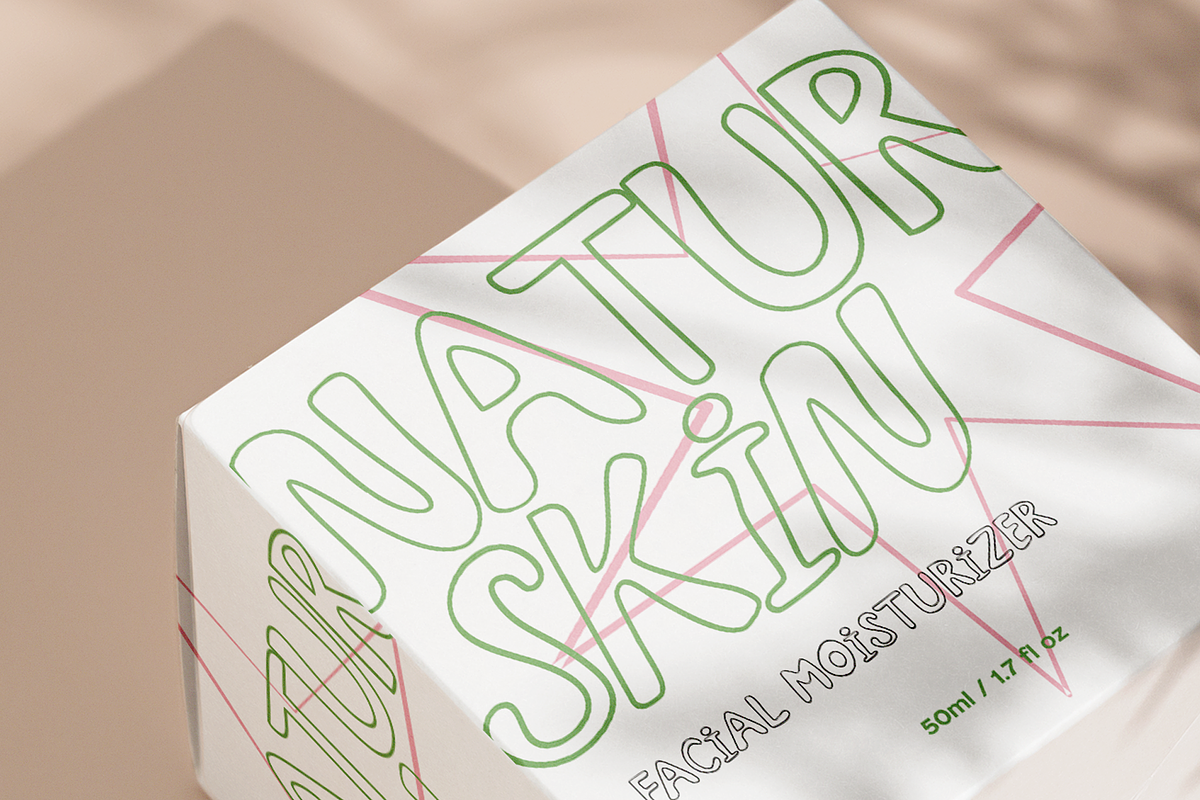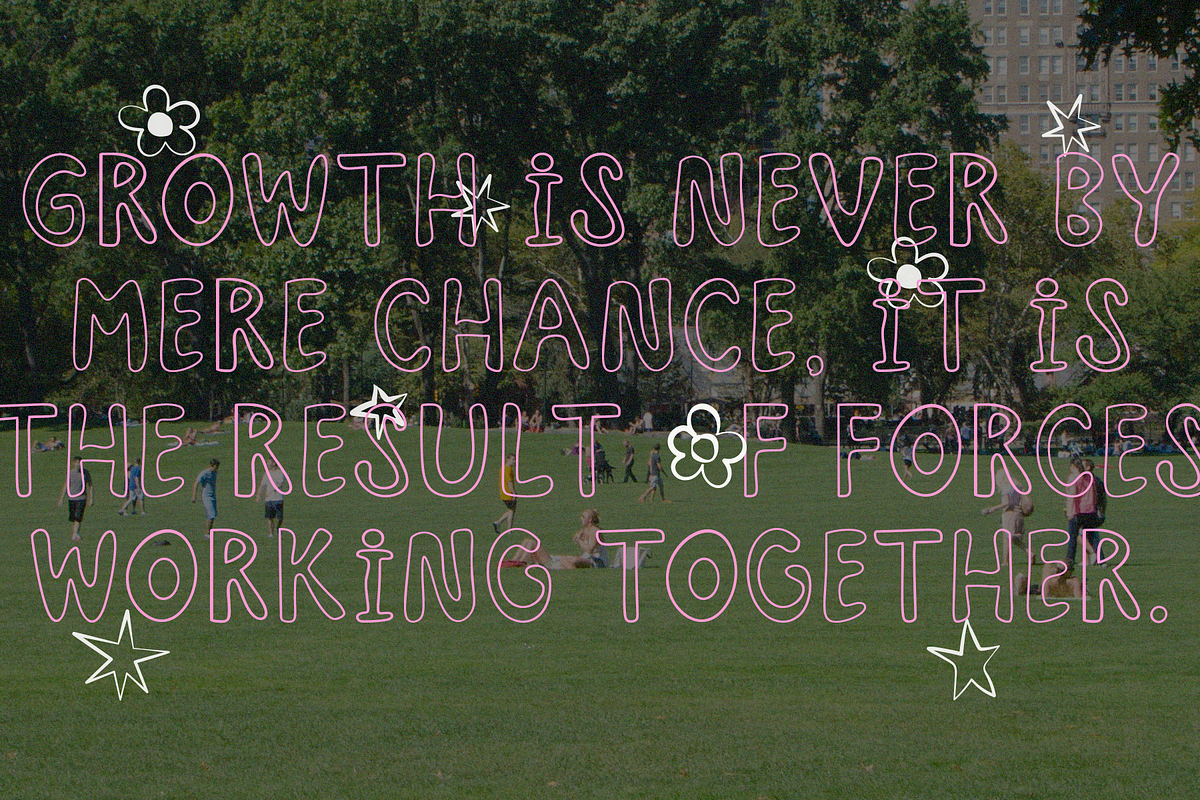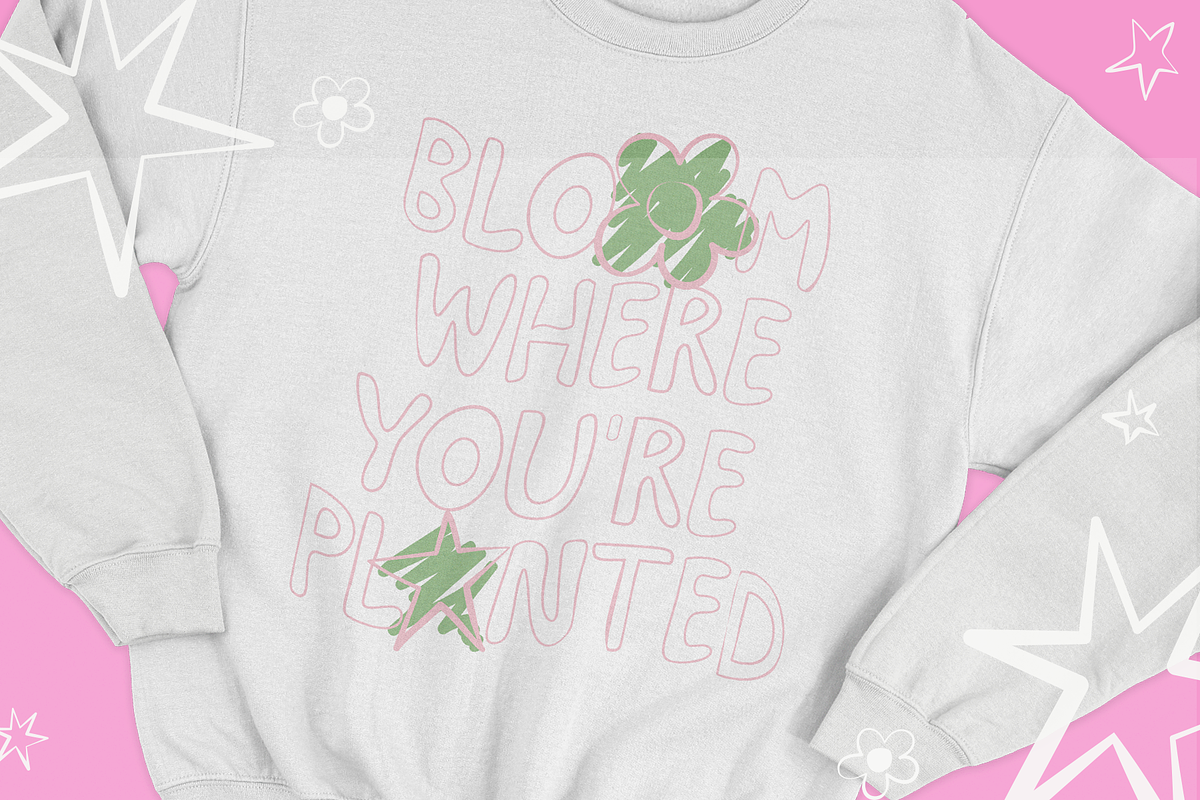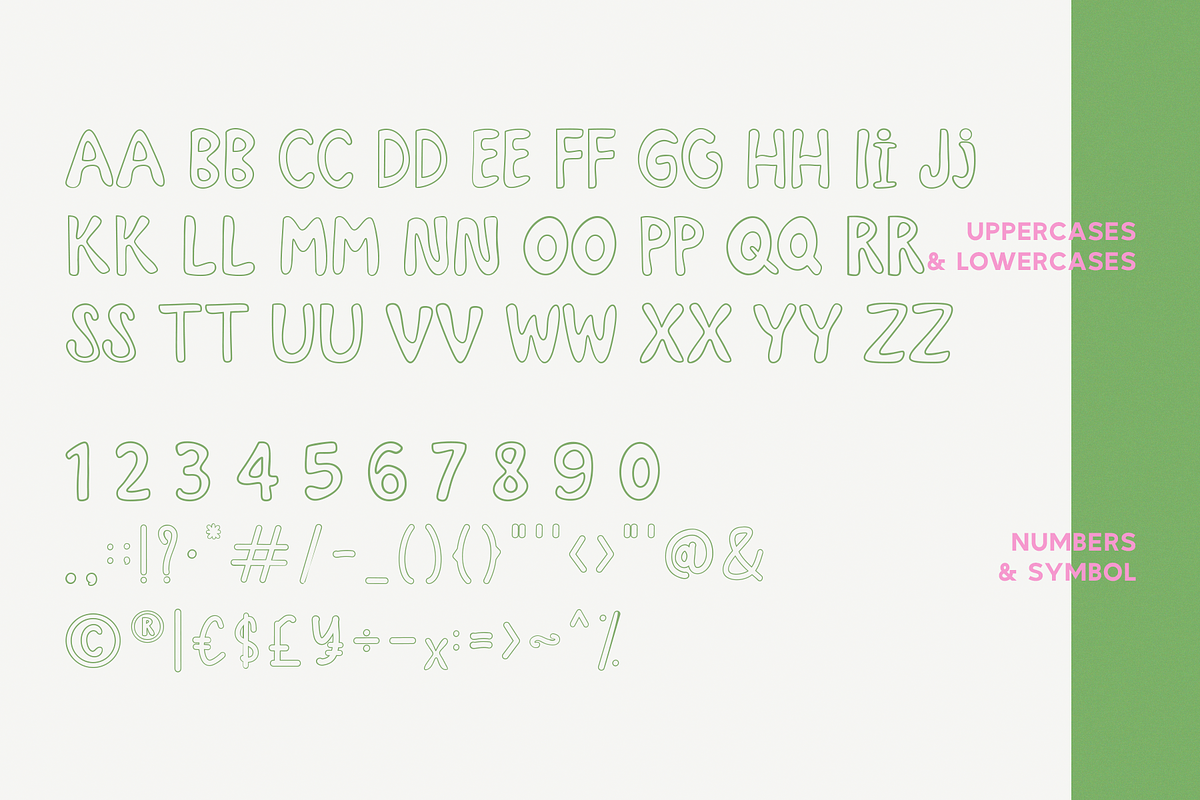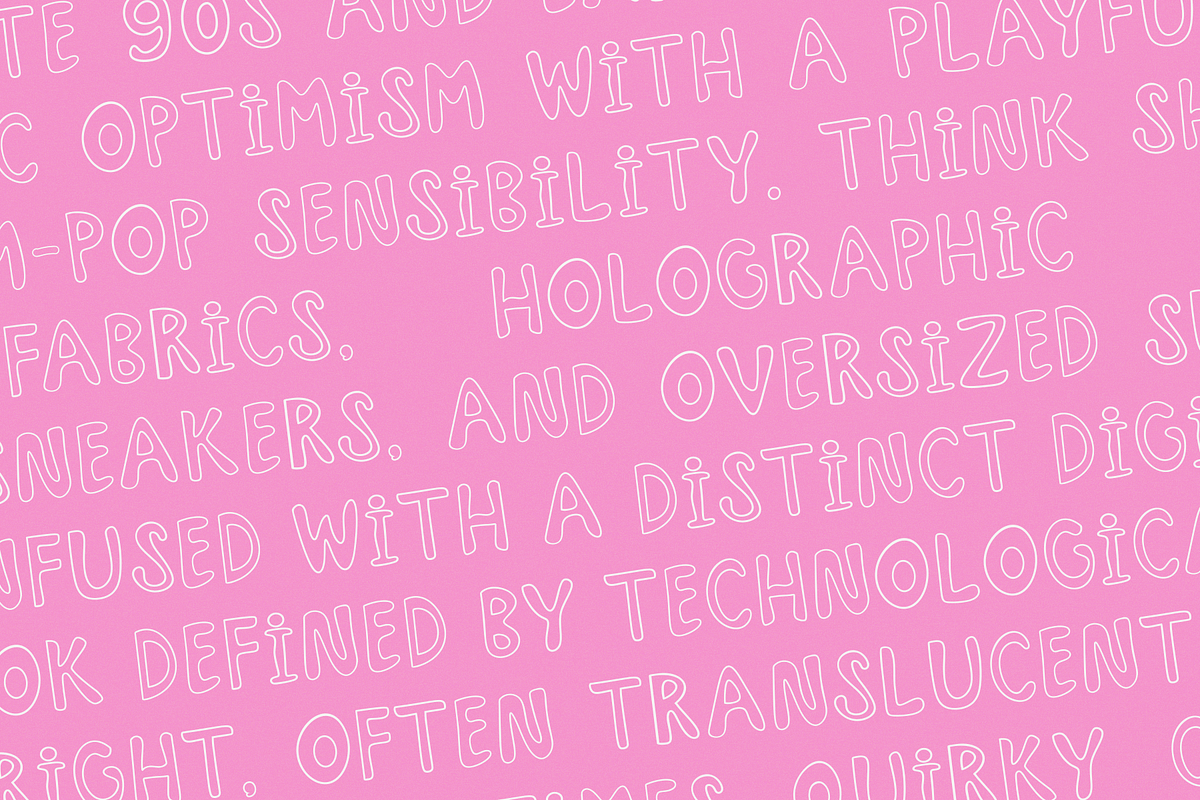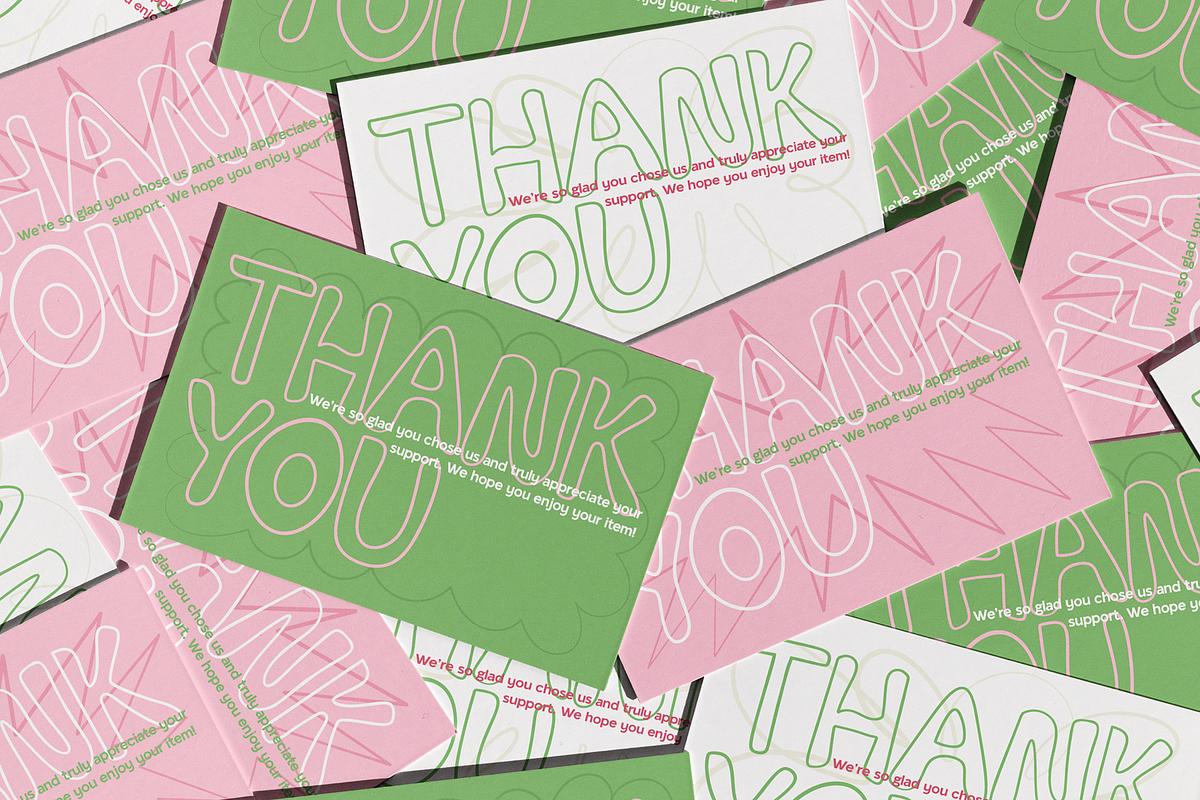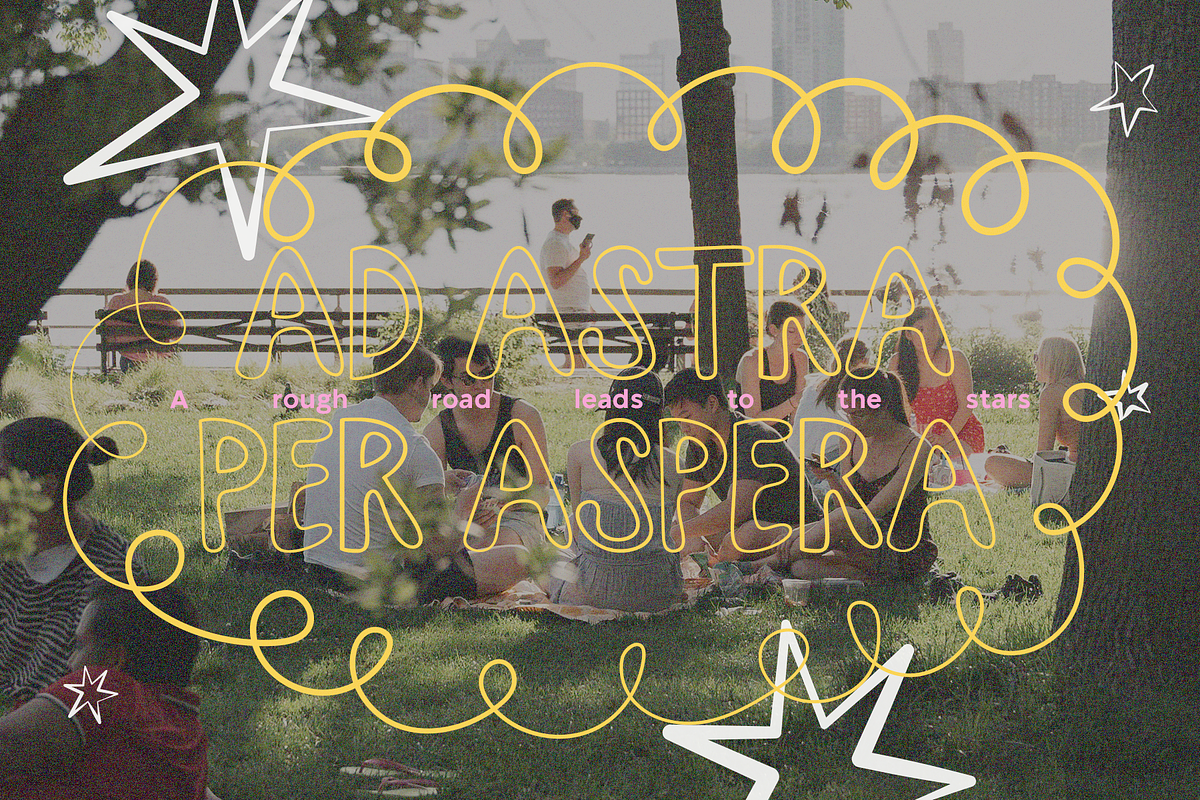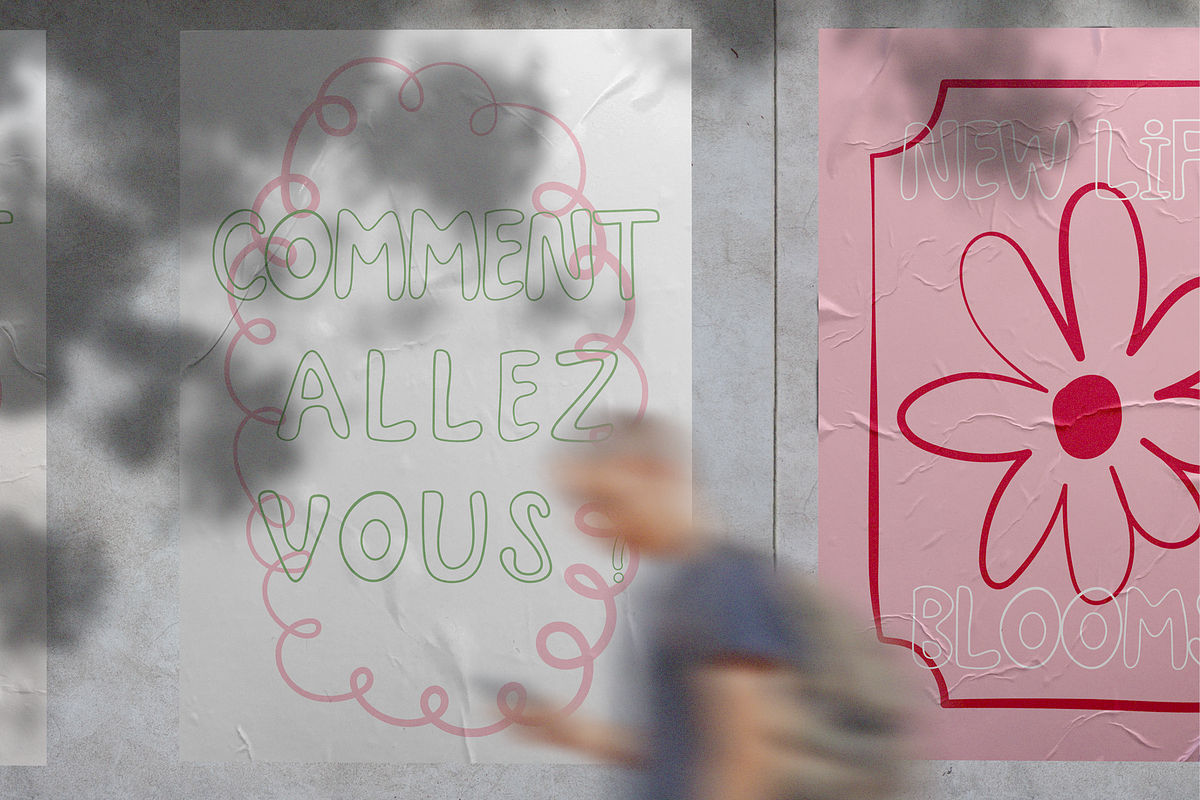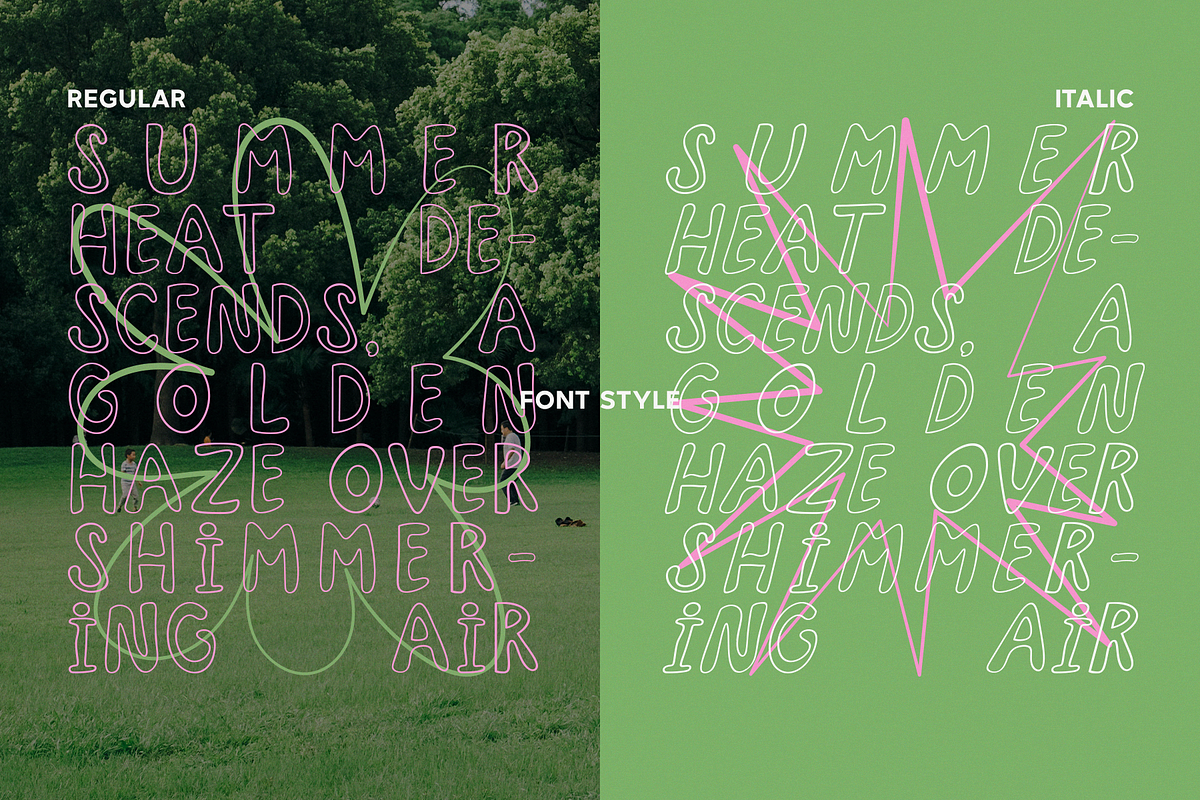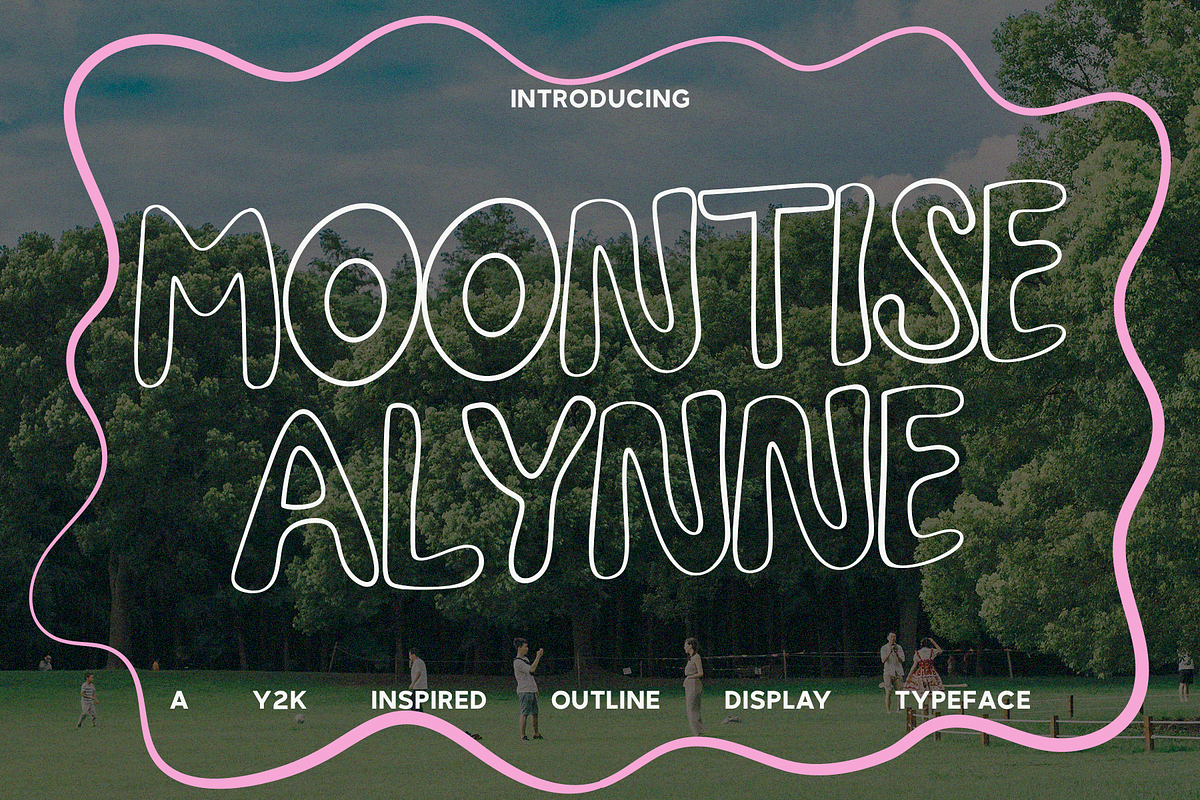
Moontise Alynne - Outline Display
Moontise Alynne is a playful and nostalgic outline display font that captures the essence of the early 2000s (Y2K) aesthetic with a modern twist. With its soft, bubbly curves and distinctive outline style, this typeface radiates retro-futurism while keeping things light and fun. Perfect for standout headlines, event posters, album artwork, youth fashion branding, and experimental visuals, Moontise Alynne is a throwback to bold creativity. The font’s hand-drawn, fluid forms make it perfect for designers seeking a unique visual voice that feels both vintage and contemporary. Whether you're designing for a music project, digital zine, or fashion campaign, Moontise Alynne adds an instant sense of character and cool. Key Features: • Outline style with a handmade Y2K vibe • All-caps display design • Playful, organic shapes • Great legibility despite its quirky forms • Ideal for bold titles and expressive layouts • Perfect for print, web, and digital media • Supports standard punctuation & multilingual characters Perfect For: • Y2K & retro-futuristic design • Posters & flyers • Album covers & mixtapes • Editorial & fashion magazines • Youth-oriented branding • Merchandise & apparel graphics Let Moontise Alynne take your design back to the future—with bold outlines and nostalgic energy.